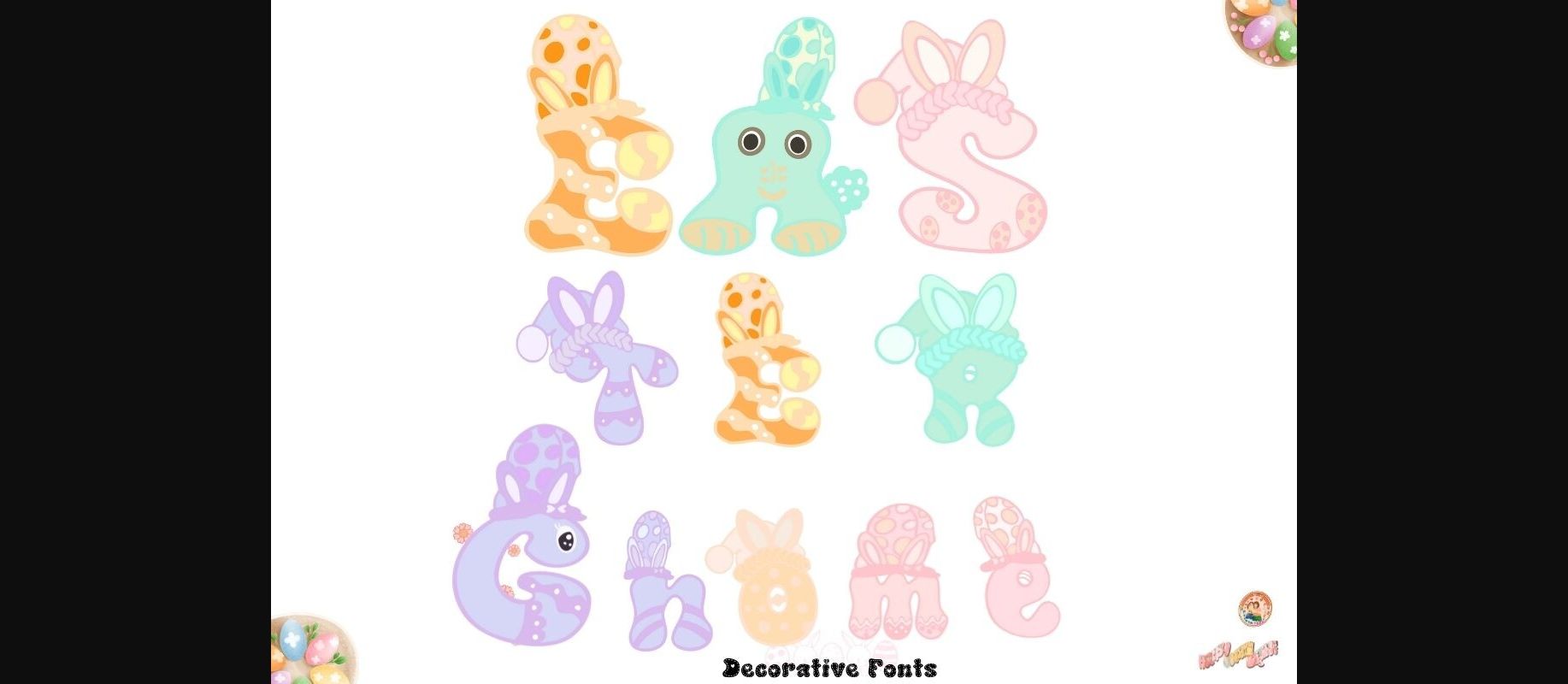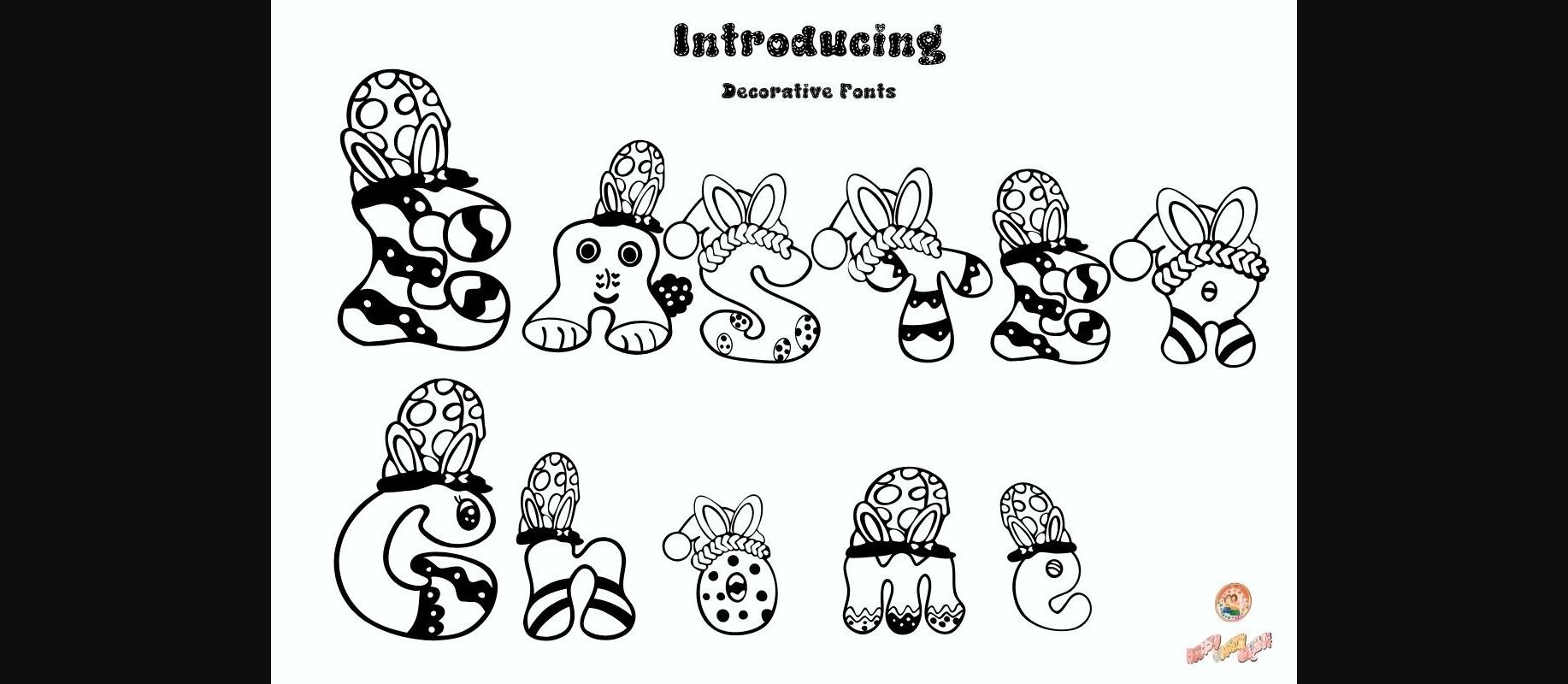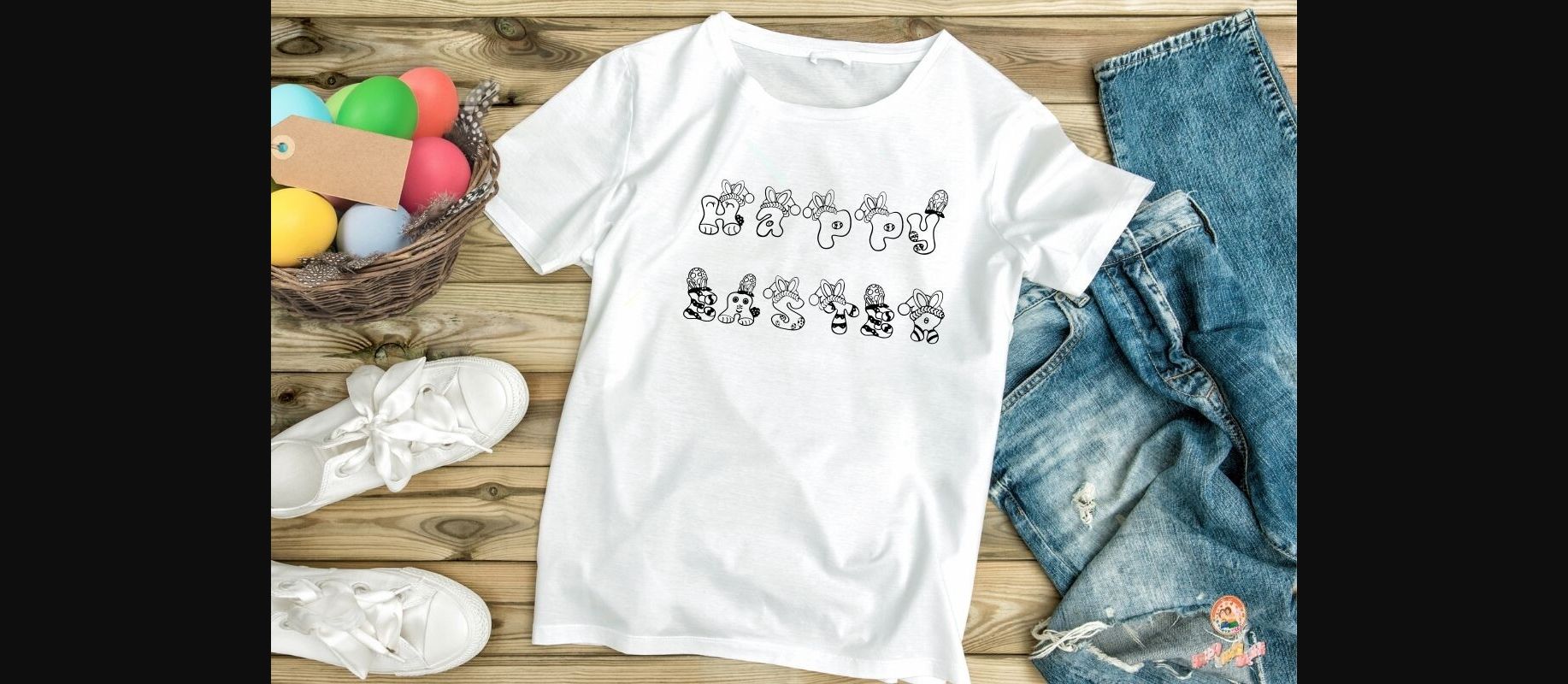
About Easter Gnome Font
Introducing the ‘Easter Gnome ’ font, the design of each letter is playful and it will give your holiday designs festive cheer! This decorative Christmas typeface features delightful elements integrated into each letter. Whether you’re creating holiday cards, gift tags, seasonal banners, t-shirts, and many more children’s products. ‘Easter Gnome ’ adds a whimsical touch of Easter magic to your text, making it the ideal choice for spreading joy during the season.